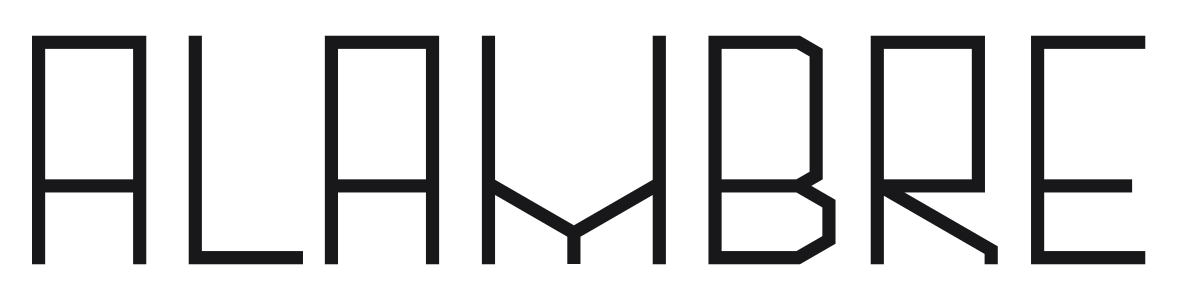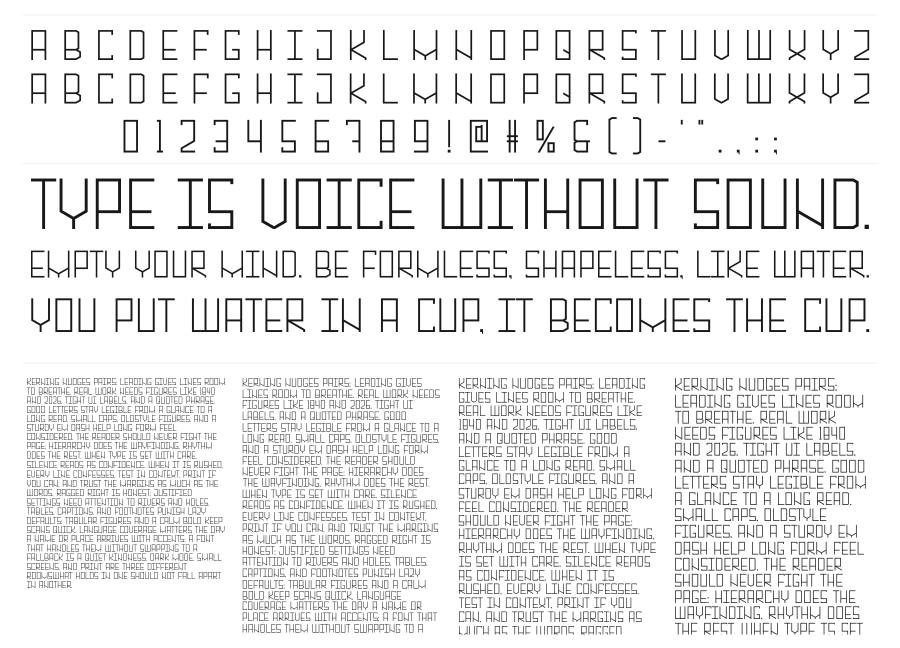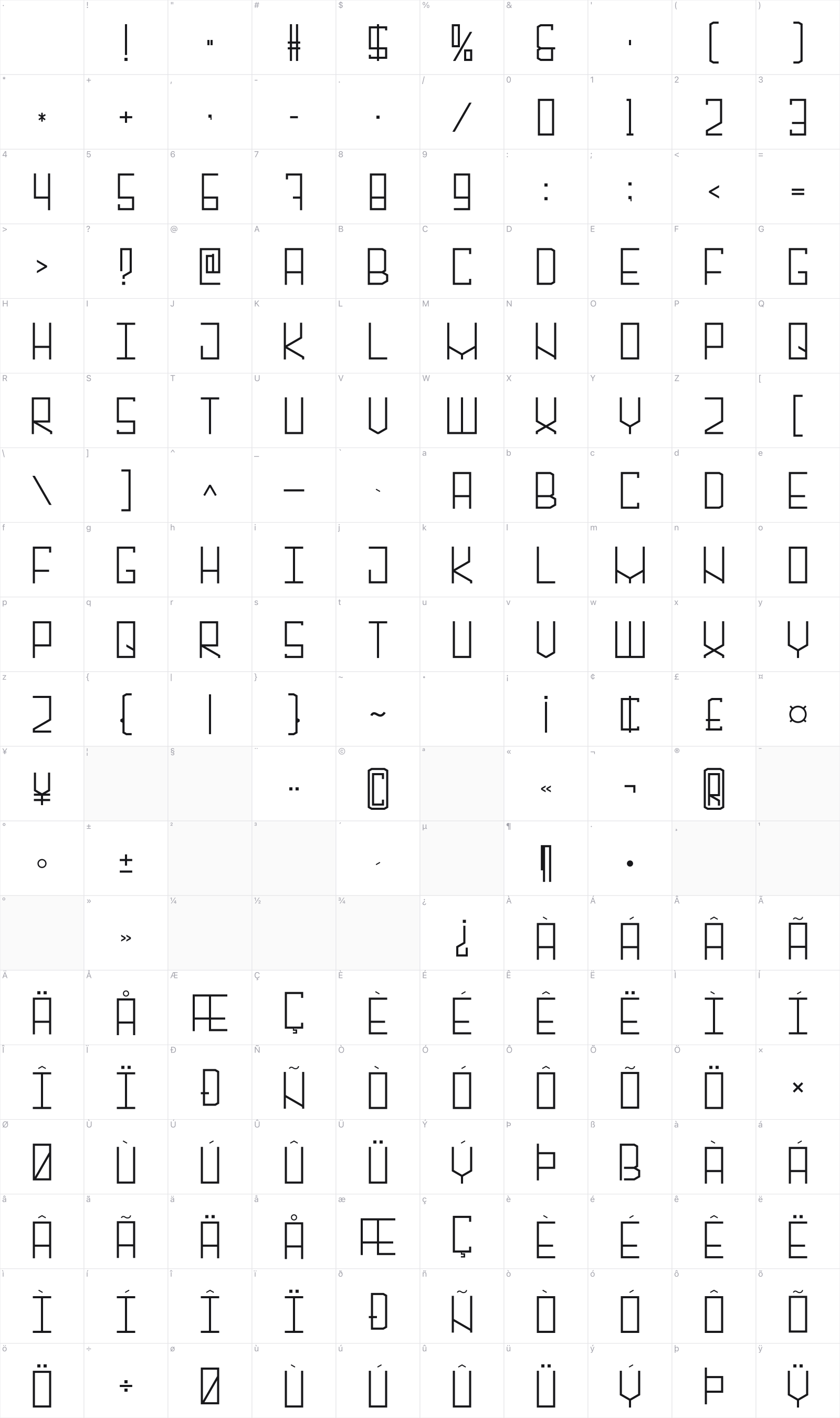
Alambre
Alambre is a thin, square geometric sans built almost entirely from straight lines and right-angle corners, with barely a curve in sight. The hairline monoweight strokes and rigid grid-like construction give it a blueprint or drafting aesthetic that feels deliberately cold and precise. It works best at large sizes where its structural details can breathe.